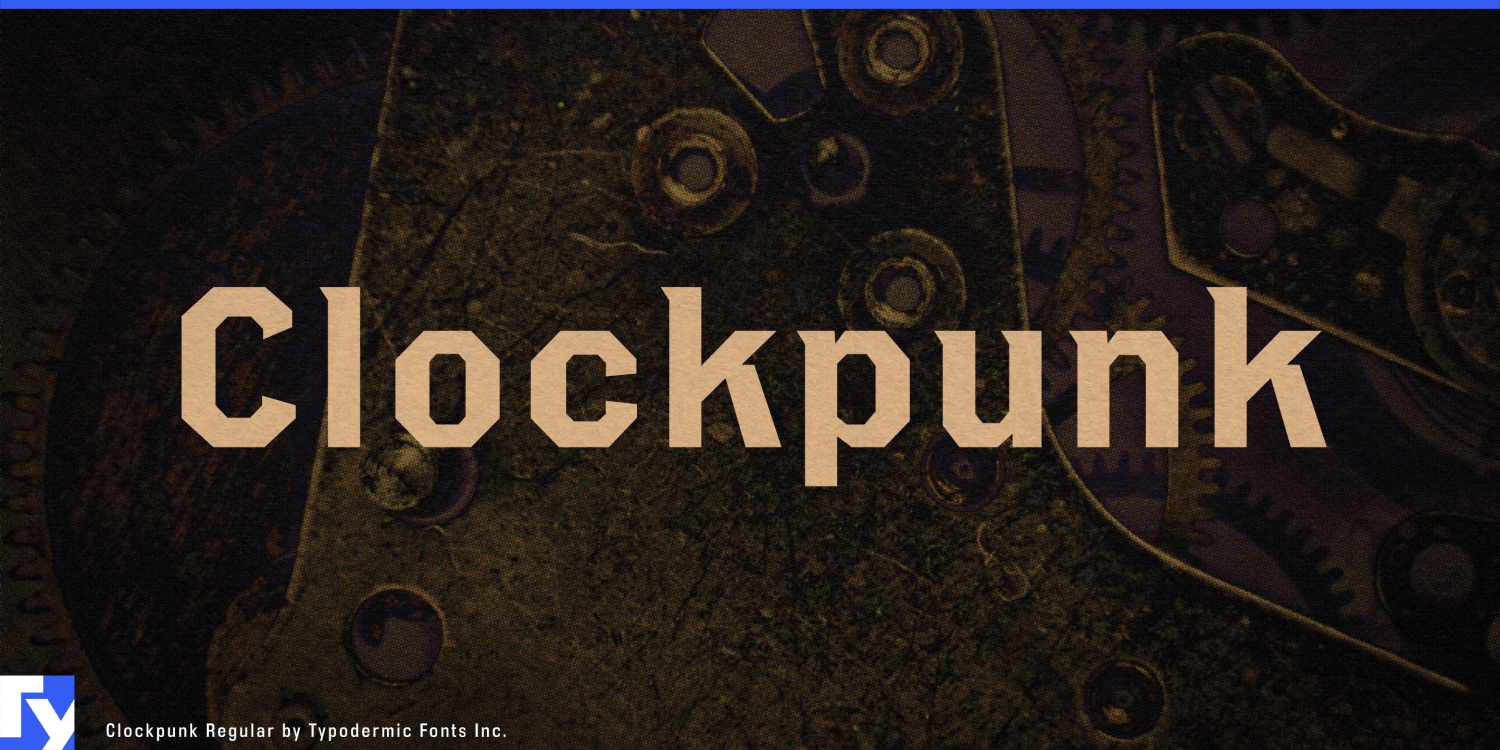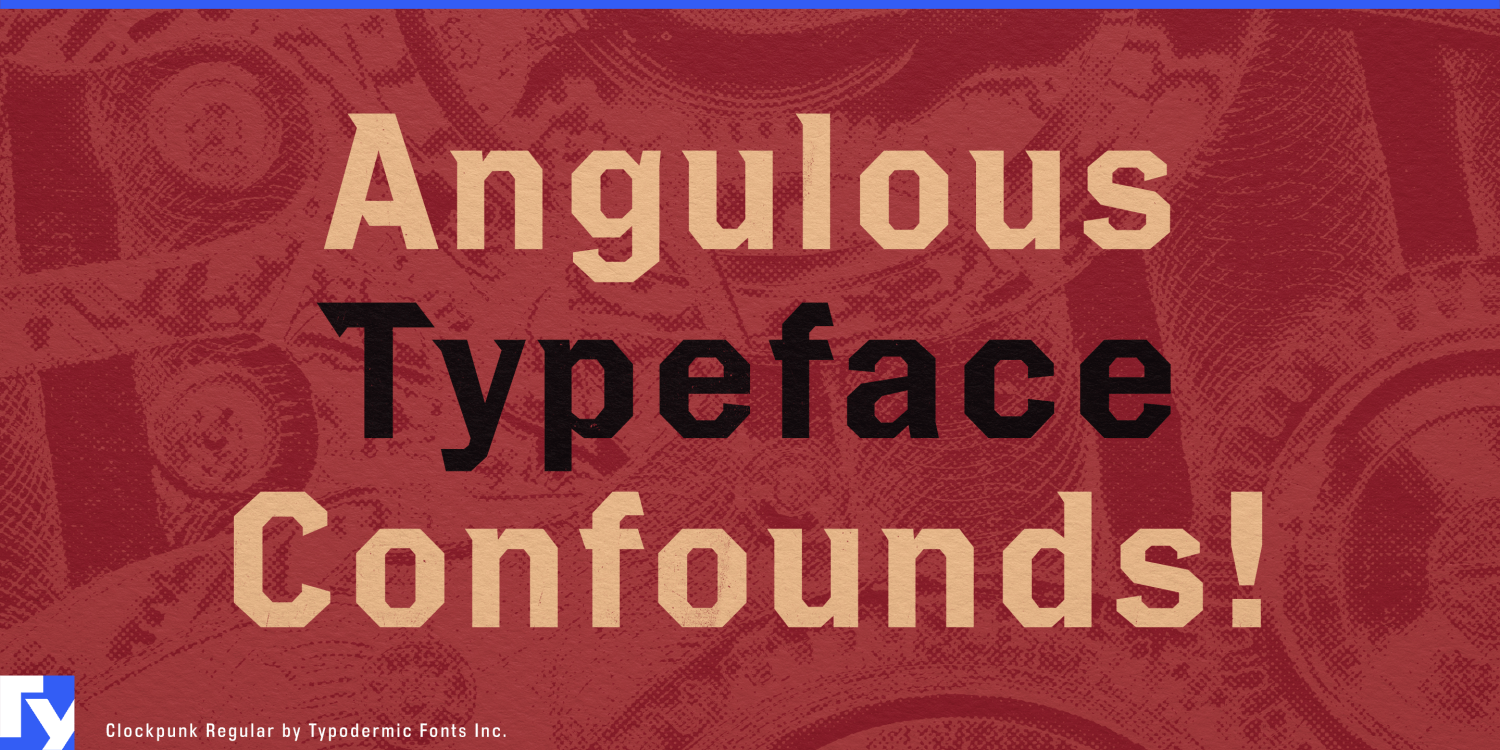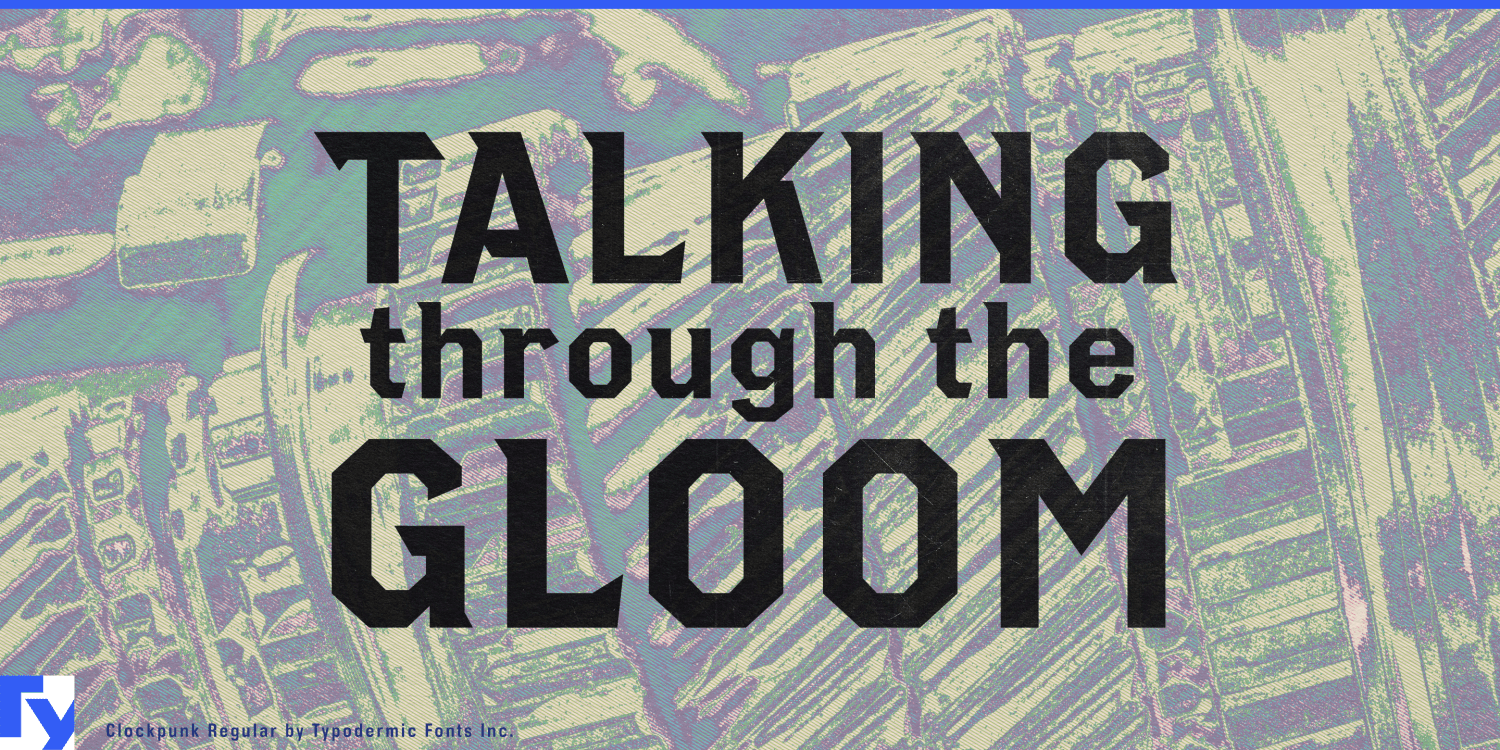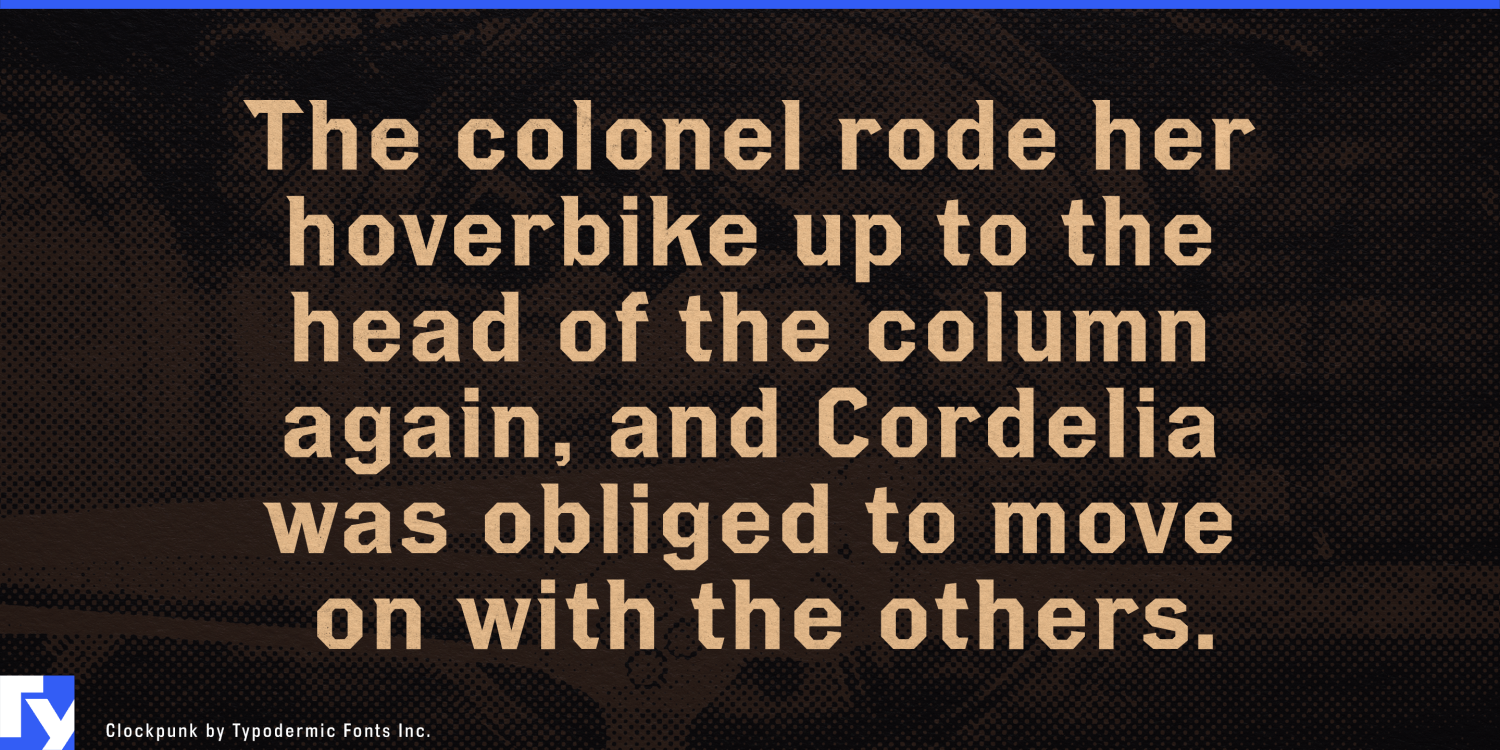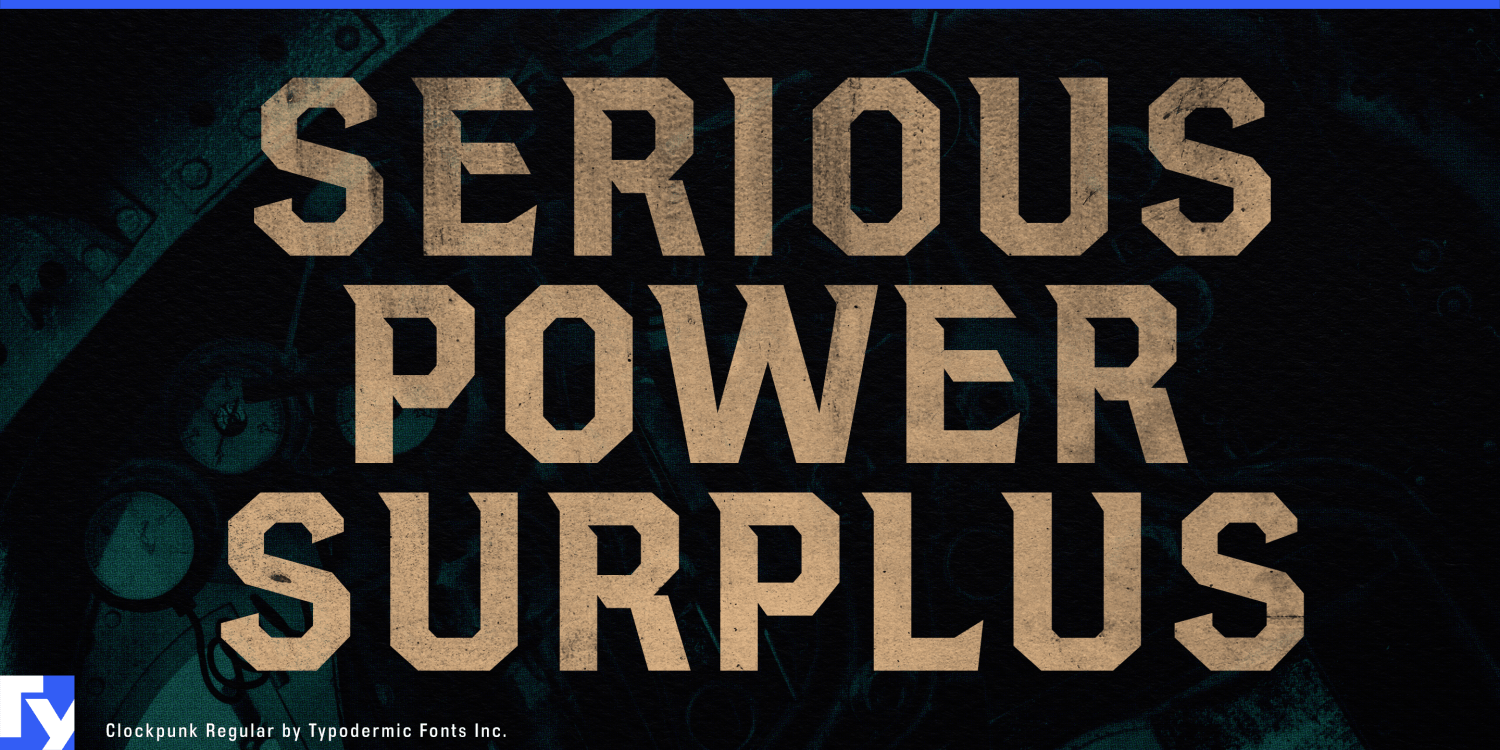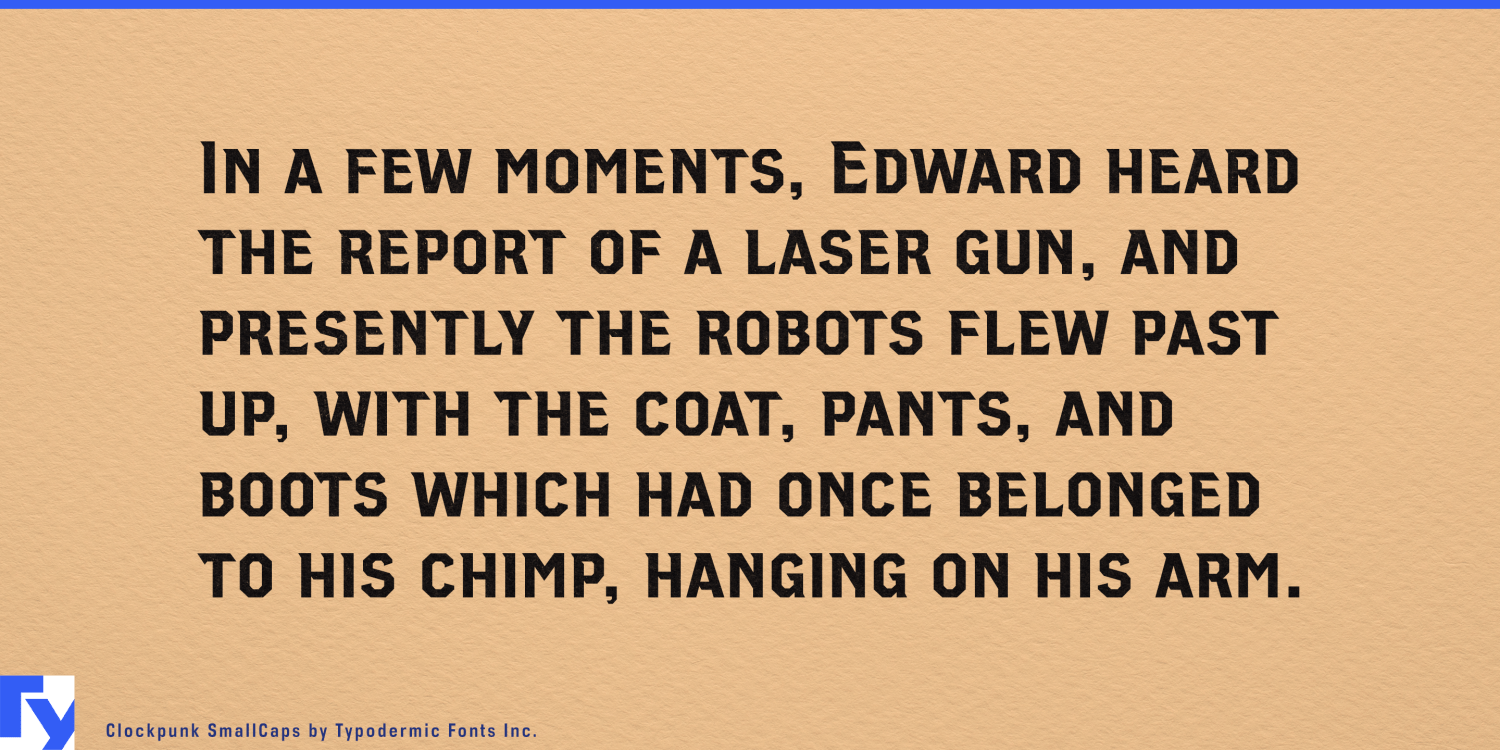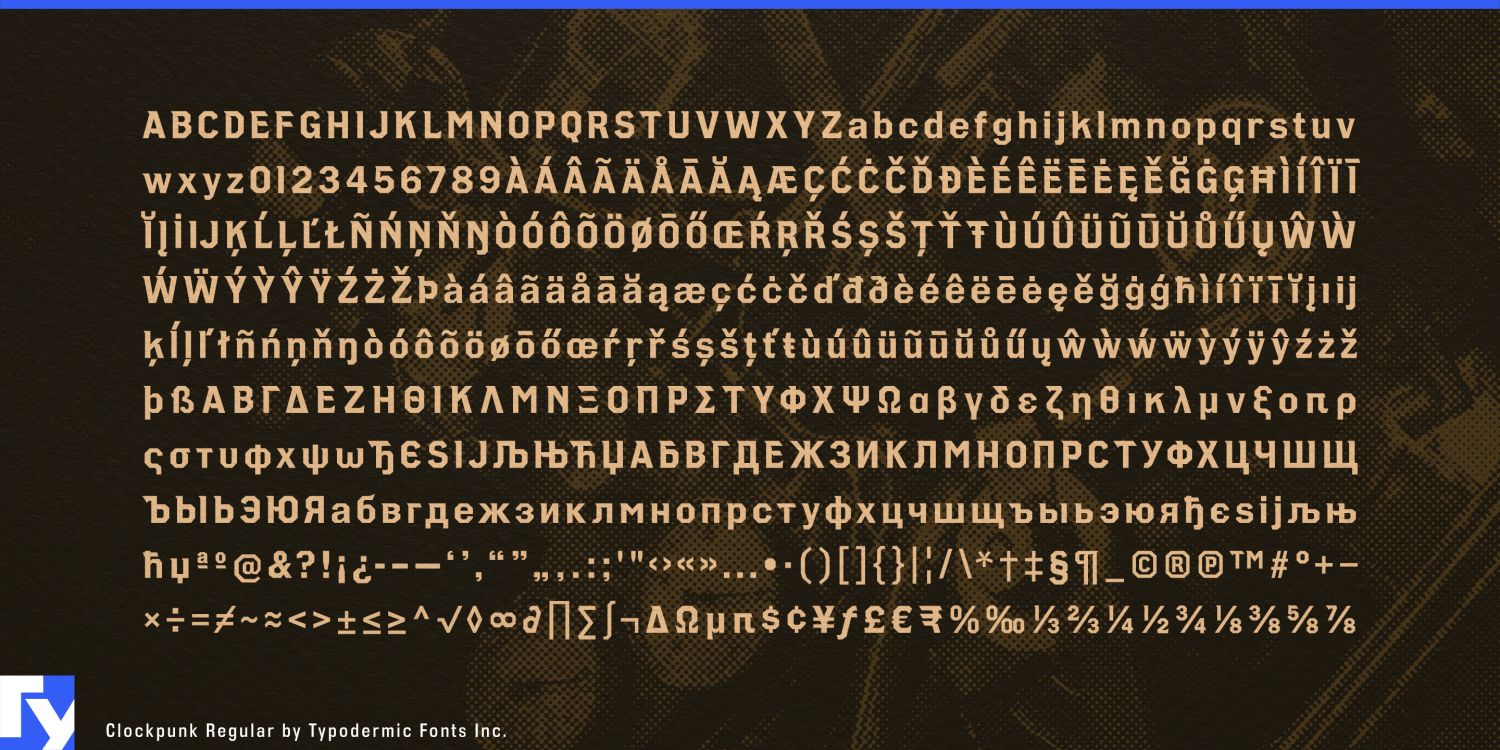
Clockpunk
Rural and industrial branding often has a typographic costume problem. Western fonts can make a serious product look like saloon décor; distressed industrial lettering can push it toward tactical or post-apocalyptic territory; a neutral sans serif can strip away the sense of place entirely. Clockpunk offers another route. Its angular railway character suggests machinery, freight, depots, workshops, and working-country infrastructure without putting a cowboy hat on the design.
That makes Clockpunk particularly useful for premium outdoor cooking equipment. Offset smokers, pellet smokers, commercial barbecue rigs, outdoor griddles, modular outdoor kitchens, and fire-cooking systems can use it for model names, series badges, control-panel headings, trailer graphics, dealer displays, packaging, competition rigs, and launch campaigns. The forms feel natural around steel, gauges, wheels, handles, and heat without falling into faux-western clichés.
Pickup and towing equipment suit the same mechanical Americana. Truck toolboxes, bed-storage systems, tonneau covers, racks, towing hardware, suspension products, lighting, utility bodies, camper accessories, and overland equipment can use Clockpunk for model families, equipment badges, decals, catalogs, packaging, trade-show graphics, and dealer displays. Rural-property equipment such as compact tractors, zero-turn mowers, log splitters, generators, pumps, utility vehicles, workshop storage, and wood-processing equipment benefits from the same established, workmanlike character.
Trailers bridge these worlds naturally. Utility trailers, smoker trailers, horse trailers, camper trailers, mobile kitchens, equipment haulers, and work trailers provide broad surfaces for lettering connected to transport and machinery without borrowing from motorsports.
Modern Americana events and venues can use Clockpunk without drifting into Old West nostalgia. Country and roots festivals, barbecue-and-music events, outdoor concert series, modern honky-tonks, and roadside hospitality can use it for event titles, performer names, merchandise, stage graphics, and venue signage. The mood is closer to boxcars, truck stops, depots, and working towns than sheriff badges and saloons.
Clockpunk also works in fictional worlds built around historical machinery. Historical-fantasy RPGs, alternate-history games, tabletop systems, railway worlds, immersive attractions, escape rooms, and industrial-history exhibits can use it for faction names, quest headings, character introductions, map locations, fictional notices, menus, prop documents, exhibit headings, and environmental text.
Its angular construction sits over proportions designed to remain readable, so the atmosphere can continue below the headline instead of disappearing when a project needs names, labels, headings, and changing information. Clockpunk brings mechanical history and country character to projects that need something tougher than neutral typography and less theatrical than a cowboy font.